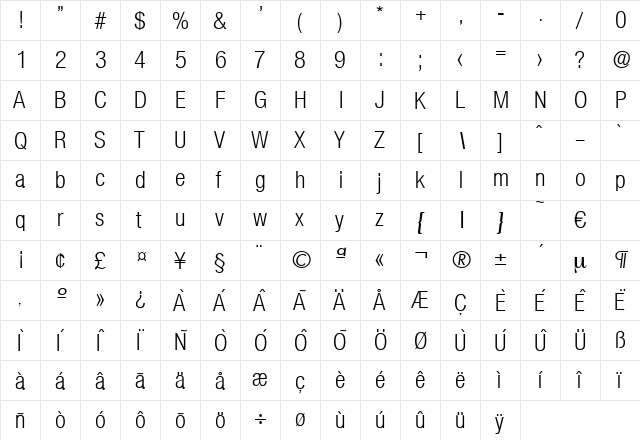
Olnova-RegularCond Regular
Design Context for Olnova-RegularCond Typeface
Olnova-RegularCond is a composed and adaptable typeface that performs quietly and consistently across a wide range of design contexts. The condensed width makes it efficient for tight spaces without sacrificing legibility.